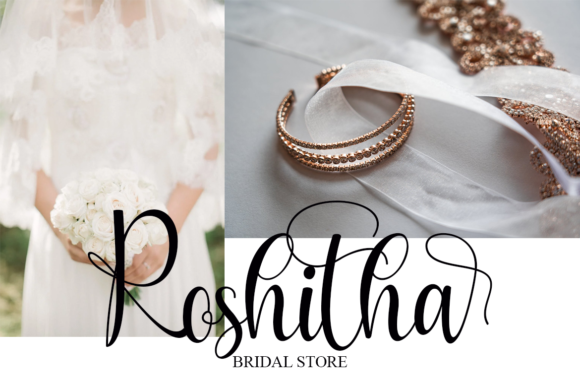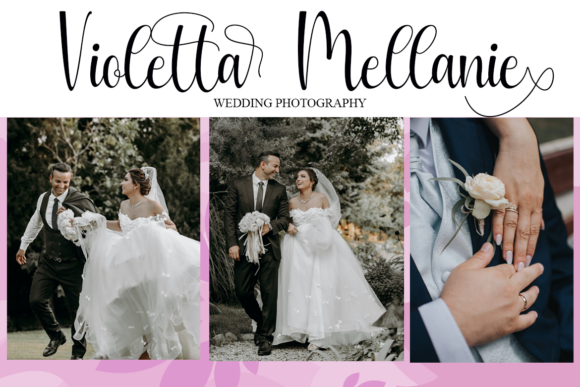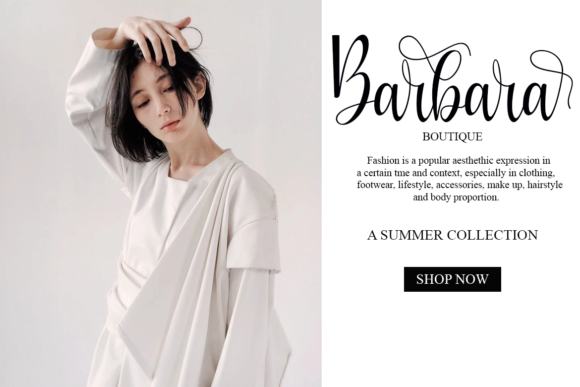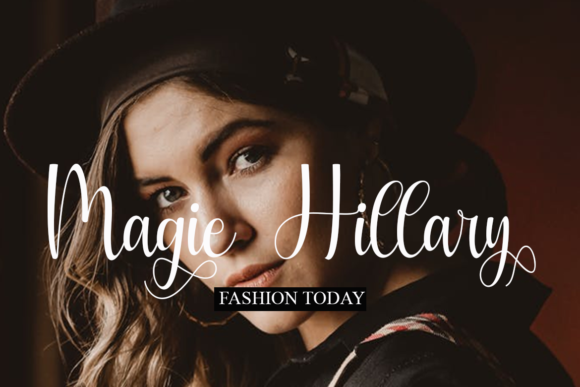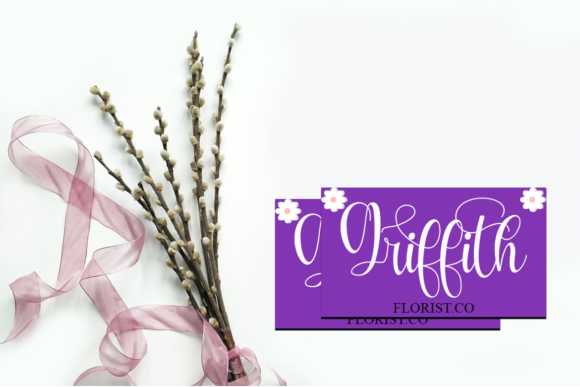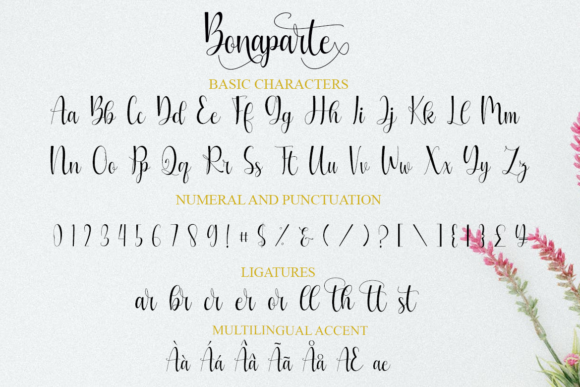
Introducing Bonaparte Font: Elevate Your Designs with Elegance and Sophistication
Are you looking for a font that exudes class, elegance, and modernity? Look no further than the Bonaparte Font. This stunning script font is perfect for designers, crafters, and DIY enthusiasts who want to add a touch of sophistication to their projects. In this article, we’ll dive into the features and benefits of the Bonaparte Font, and explore how it can elevate your designs, logos, branding, social media, and crafty DIY projects.
The Beauty of Bonaparte Font
Bonaparte Font is a beautiful script font that boasts a classy, elegant, and modern look. Its unique and flowing design makes it perfect for creating stunning logos, branding materials, and social media graphics. The font’s elegant strokes and curves will add a touch of sophistication to any design, making it ideal for designers who want to create high-end visuals.
Perfect for Logos, Branding, and Social Media
Bonaparte Font is the perfect fit for all of your logos, branding, and social media projects. Its modern and elegant design makes it suitable for a wide range of industries, from fashion and beauty to food and beverage. With Bonaparte Font, you can create stunning logos, business cards, brochures, and social media graphics that will make your brand stand out from the crowd.
Crafty DIY Projects Made Easy
Bonaparte Font is not just limited to digital designs. It’s also perfect for crafty DIY projects, such as handmade cards, scrapbooking, and journaling. The font’s PUA encoding makes it easy to access all of the glyphs and swashes, allowing you to add a personal touch to your DIY projects.
PUA (Private Use Area) encoding is a feature that allows designers to access a wide range of glyphs and swashes in a font. In the case of Bonaparte Font, PUA encoding makes it easy to access all of the font’s features, including ligatures, ornaments, and swashes. This means that you can create unique and personalized designs that reflect your brand’s style and personality.
Benefits of Using Bonaparte Font
So, what are the benefits of using Bonaparte Font? Here are just a few:
- Elegant and modern design: Bonaparte Font boasts a stunning script design that’s perfect for creating high-end visuals.
- PUA encoded: Easy access to all glyphs and swashes, making it easy to create unique and personalized designs.
- Versatile: Suitable for a wide range of industries and design projects, from logos and branding to social media and DIY projects.
| Font Name | Bonaparte Font |
| Author | Supersemar Letter |
In conclusion, Bonaparte Font is a stunning script font that’s perfect for designers, crafters, and DIY enthusiasts who want to add a touch of elegance and sophistication to their designs. With its modern and elegant design, PUA encoding, and versatility, Bonaparte Font is the perfect fit for all of your logos, branding, social media, and crafty DIY projects. So why wait? Download Bonaparte Font today and elevate your designs to the next level.